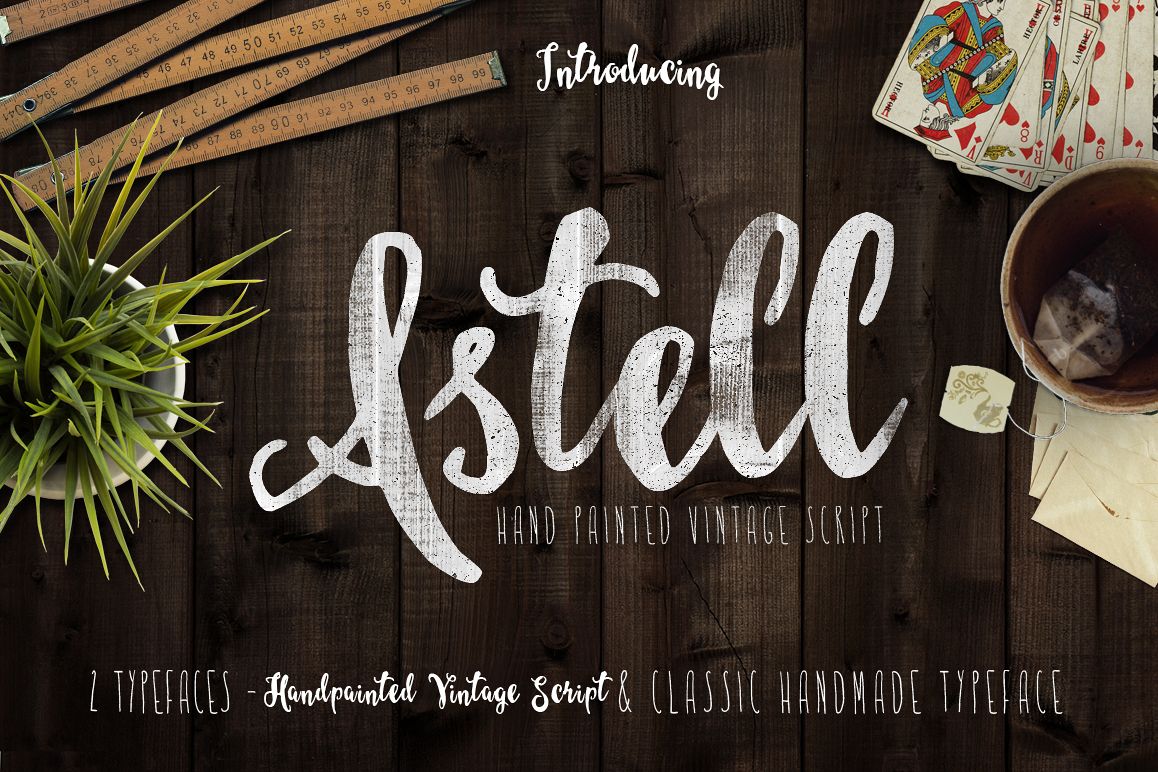
Astel Script Typeface
Astel Typeface.
Astell Long Hand.
Astel Typeface is a hand painted script vintage font and Astell Long Hand is handdrawn long font.